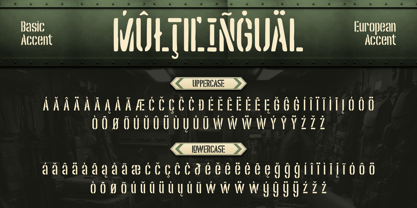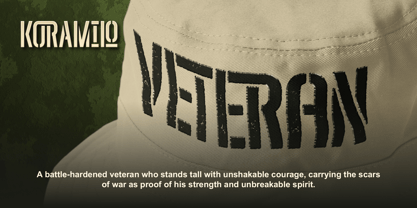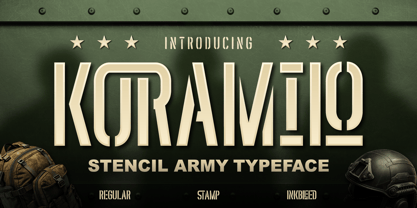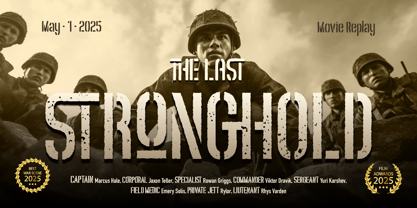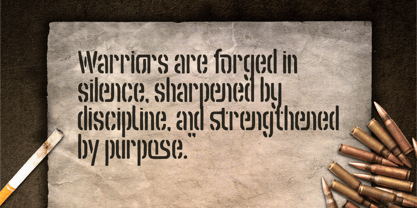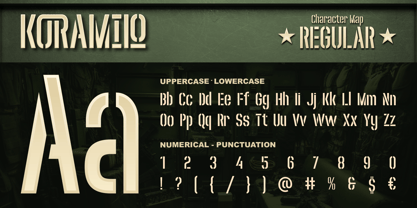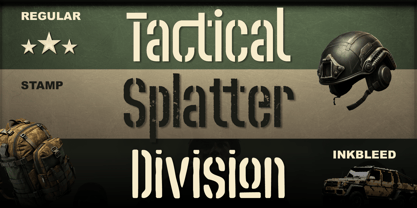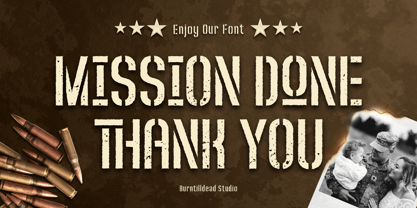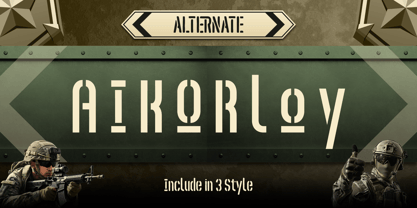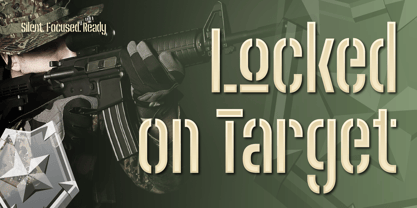
Koramilo
by Burntilldead
The Koramilo Font Family was designed by Eric Kurniawan and published by Burntilldead. Koramilo contains 3 styles and family package options. More about this family
Koramilo isn’t just a font — it feels like stepping into a battlefield story. Inspired by tactical stencils, rugged military gear, and the discipline of real warriors, Koramilo brings a bold, fearless attitude to every design. The Regular style gives you a clean, sharp command presence. The Stamp version delivers a gritty, worn-out texture — like markings on crates and armored vehicles. And Inkbleed adds a dramatic imperfection, as if printed under pressure in the middle of a mission. Koramilo is built for posters, game titles, badges, apparel, movie graphics, tactical branding, and anything that needs a strong “military mission” vibe. It comes with alternates, ligatures, multilingual support, and three distinct styles, giving you plenty of firepower to craft your own battlefield aesthetic. Whether you're creating a movie scene, a war-themed UI, or a hero-worthy headline, Koramilo stands firm — silent, focused, and ready for action. Features: A - Z set (Uppercase & Lowercase), Number, Alternate, Ligatures, Punctuation, Multilingual
Designers: Eric Kurniawan
Foundry: Burntilldead